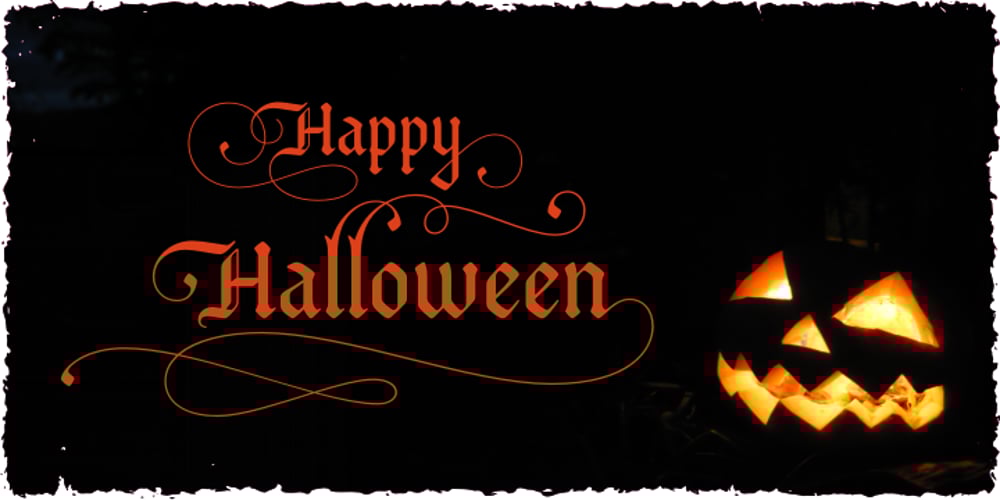
Bucanera Soft Font Family was designed by Manuel Eduardo Corradine and published by Corradine Fonts. Bucanera Soft contains 4 styles and family package options. Bucanera Soft is a clean modern blackletter designed especially considering its readability. Due to its soft edges, Bucanera Soft leaves the traditional look of aggressive and hard blackletters and allows to find a more friendly appearance in a wide range of applications. Bucanera Soft was selected as a winner in the 3rd Communication Arts Magazine Typography Contest in Typeface Design category, 2013 issue.